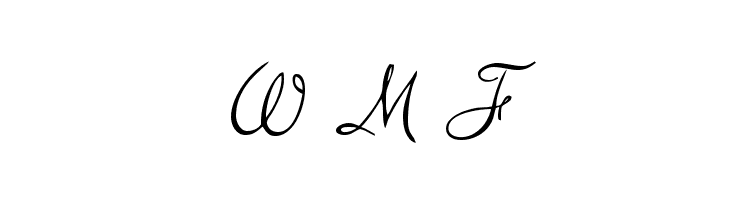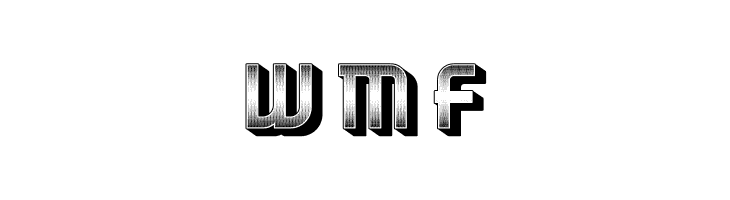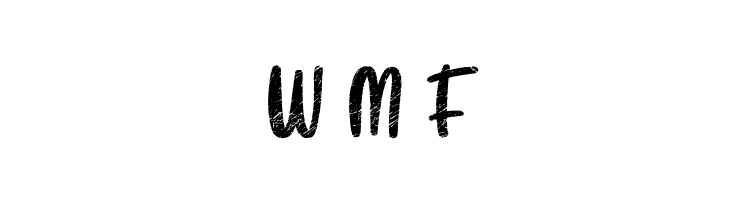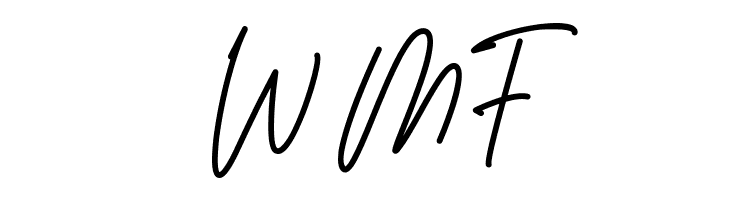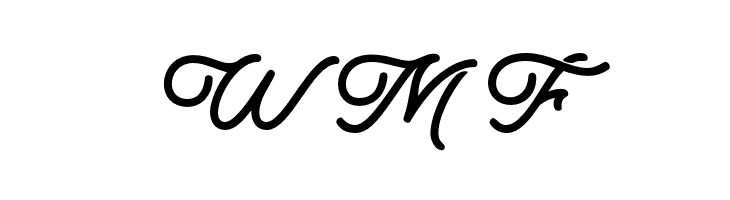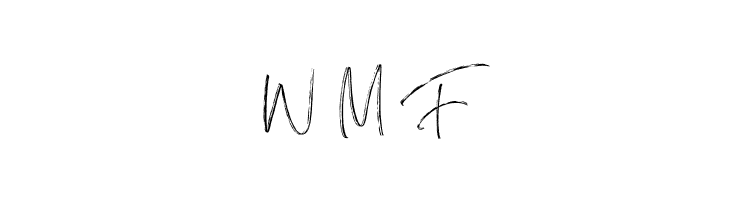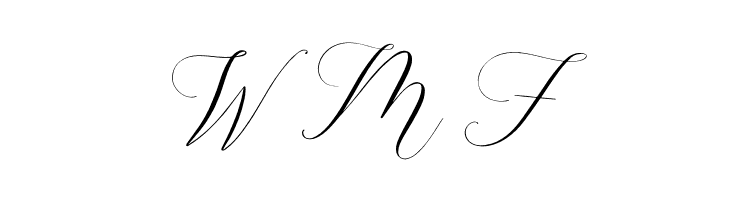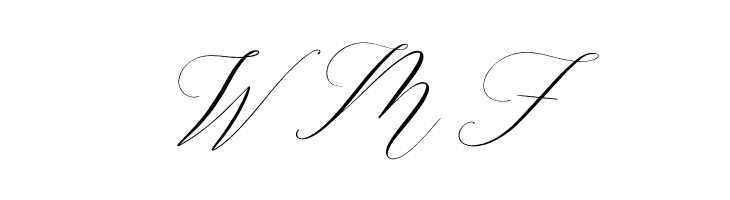
A futuristic, geometric font with a double-line structure and rounded edges.
A futuristic, geometric font with rounded edges and consistent stroke width.
A dot matrix style font with a retro digital aesthetic.
A bold, hand-drawn font with an expressive and playful style.
An elegant serif font with an italic slant, featuring moderate contrast and graceful curves.
A bold, robust font with elegant curvature and strong presence.
A modern serif font with clean lines and a professional look.
A bold and italic font with strong, dynamic strokes and excellent readability.
A bold, angular font with high contrast and a distinctive, edgy style.
A bold, expressive script font with a dynamic, handwritten style.
An elegant, flowing script font with ornate loops and flourishes.
A bold, industrial font with a 3D effect and geometric structure.
A bold, 3D font with an industrial, retro-futuristic style.
A bold, comic-inspired font with textured shading and playful energy.
A dynamic and expressive handwritten font with fluid strokes.
A futuristic, geometric font with clean lines and angular shapes.
A dynamic, edgy font with sharp, angular strokes and a graffiti-like style.
A bold, elegant script font with a flowing, handwritten style.
A fluid, handwritten font with elegant, connected strokes and dynamic thickness.
A bold, textured font with a vintage, hand-painted look.
A bold, angular, and futuristic italic font with a dynamic, geometric design.
A modern, rounded font with a clean and approachable design.
A lively, expressive handwritten font with fluid strokes and a casual elegance.
A bold, expressive brush-style font with dynamic, hand-painted strokes.
A sophisticated cursive font with elegant, flowing strokes and varied thickness.
A playful and elegant handwritten script font with fluid, dynamic lines.
A lively, elegant script font with fluid cursive strokes and an italic slant.
A sophisticated cursive font with elegant, flowing characters.
A bold, expressive script font with fluid, cursive letterforms.
A dynamic, expressive handwritten font with fluid, brush-like strokes.
A dynamic, expressive handwritten font with fluid strokes.
A fluid, elegant script font with a natural handwritten style.
An elegant script font with flowing, cursive letterforms and high contrast strokes.
A luxurious, flowing cursive font with intricate loops and swashes.